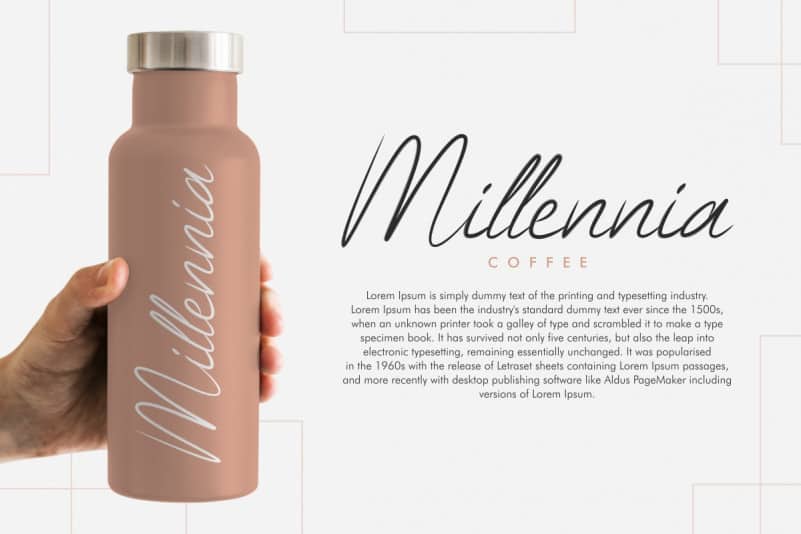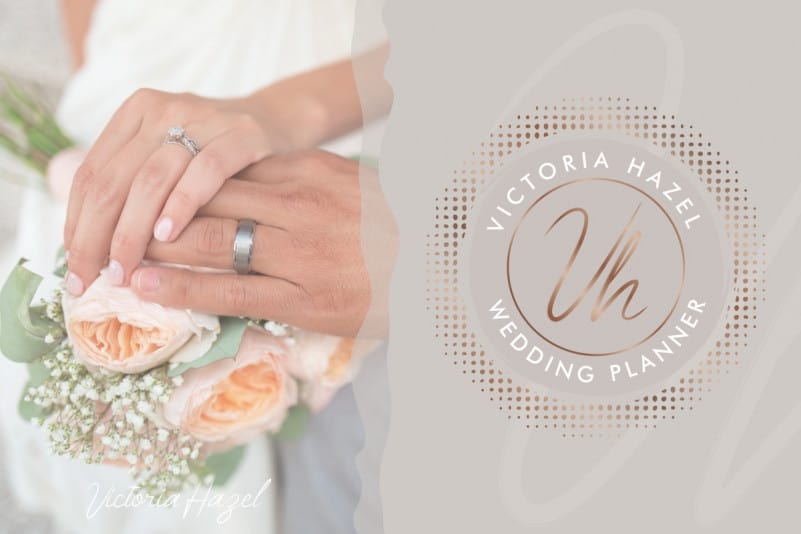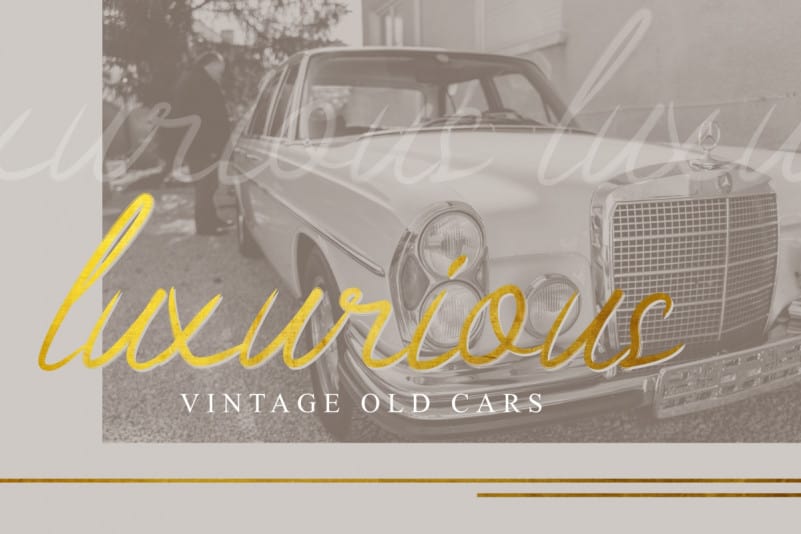
Biographical Script Font
Biographical Script Font is a stylish signature handwriting font which is combining modern and classic typography with elegant look. This font is crafted carefully in every its single letter so we can make sure it has great looking, inspired by the handwriting of Italian women and ancient manuscripts. Carefully designed to work together in harmony and This one should make your designs instantly professional and jaw-dropping!
Biographical Script Font includes full set of Uppercase and Lowercase Basic Characters, Numerals and Punctuation. Also it contains ligatures to make it flowless characters to perfectly make awesome look that add more aesthetic fonts to perfect your extraordinary project. Biographical Font will be great for writer, musician, singer, CEO, composer, architect, etc